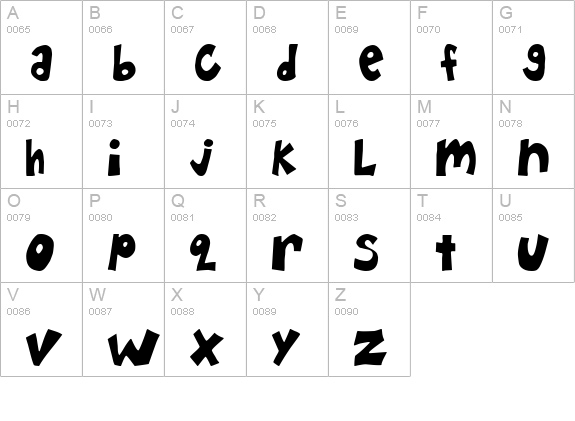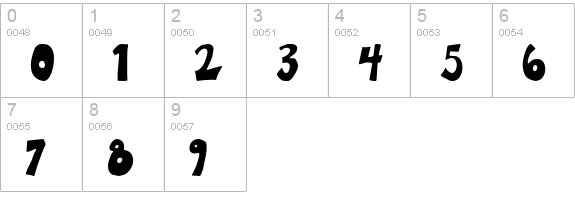
Happy Hero Font Details
Introducing Happy Hero, a delightful and charismatic font that will bring a smile to your designs. With its playful and energetic letterforms, Happy Hero is perfect for adding a touch of joy and positivity to any project. This font's unique and dynamic style exudes a sense of enthusiasm and happiness, making it a perfect choice for branding, packaging, posters, and more. Whether you're designing for a children's book, a summer party invitation, or a cheerful logo, Happy Hero will instantly inject a sense of fun and excitement into your creations. One of the most remarkable aspects of Happy Hero is that it is completely free to download. Yes, that's right - this beautiful font can be yours at no cost! You can easily obtain Happy Hero by visiting FontsMarket.com, where it is readily available for download. Embrace the opportunity to enhance your designs with this whimsical and vibrant font, without breaking the bank. Not only is Happy Hero a visually appealing font, but it also offers great versatility. With its wide range of weights and styles, you have the freedom to experiment and create various looks and moods. From bold and eye-catching headlines to delicate and elegant text, Happy Hero can effortlessly adapt to your design needs. The attention to detail in Happy Hero is truly remarkable. Every curve, every swirl, and every stroke has been meticulously crafted to capture the essence of happiness and optimism. The result is a font that instantly captivates the viewer and spreads a sense of joy and cheer. So why wait? Download Happy Hero today and let its playful charm and vibrant personality infuse your designs with happiness and excitement. Visit FontsMarket.com now and grab this amazing font, free of charge. Unleash your creativity and let Happy Hero be your trusty companion on your design adventures.